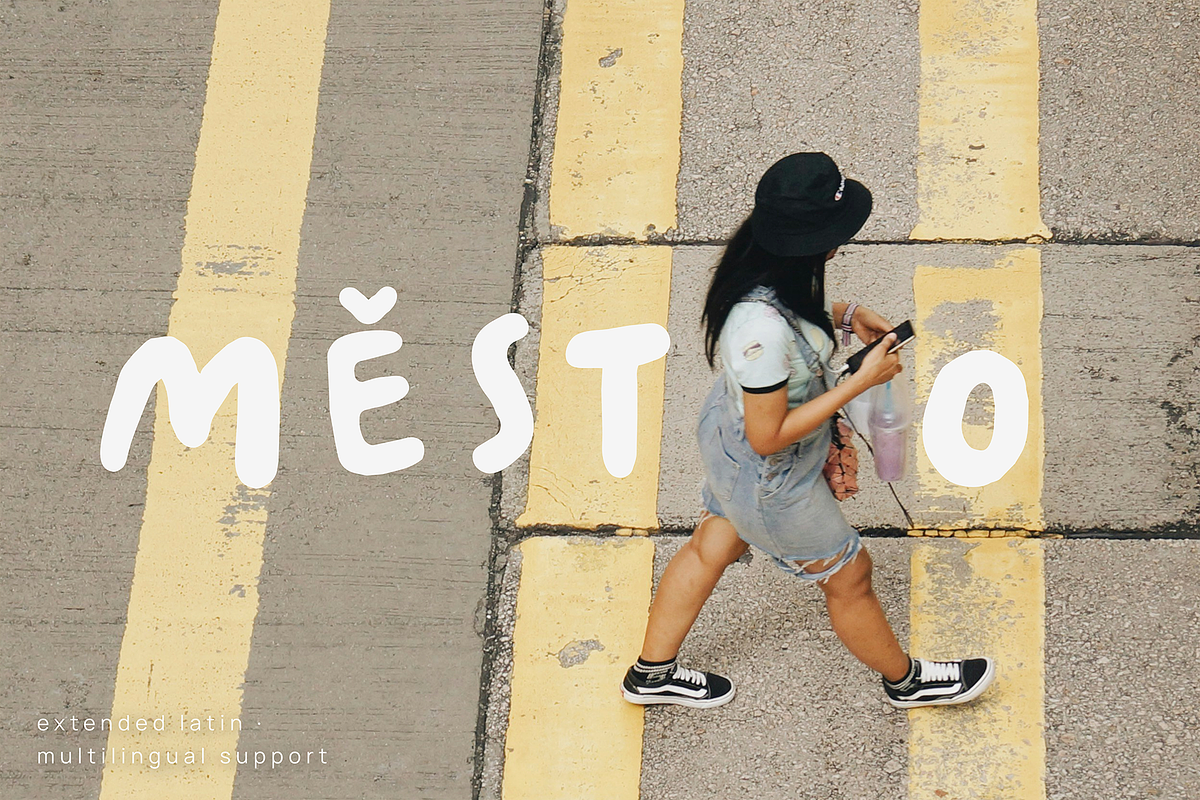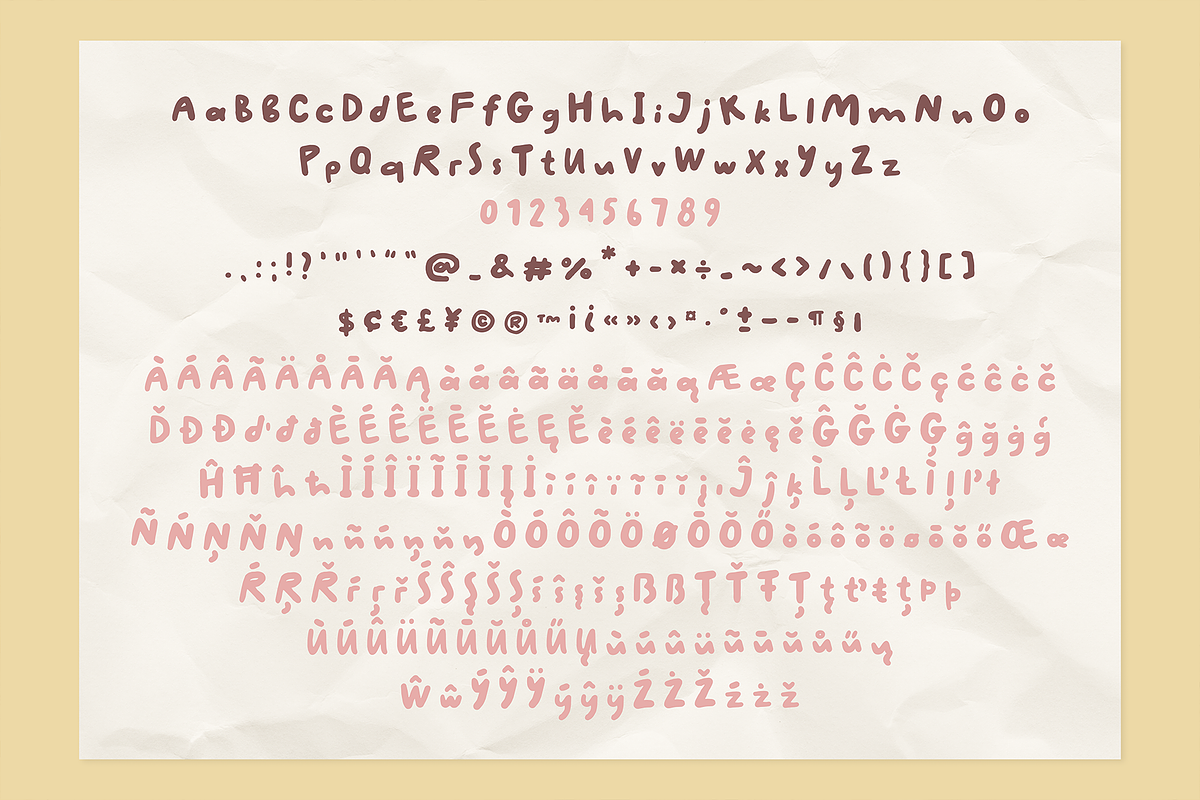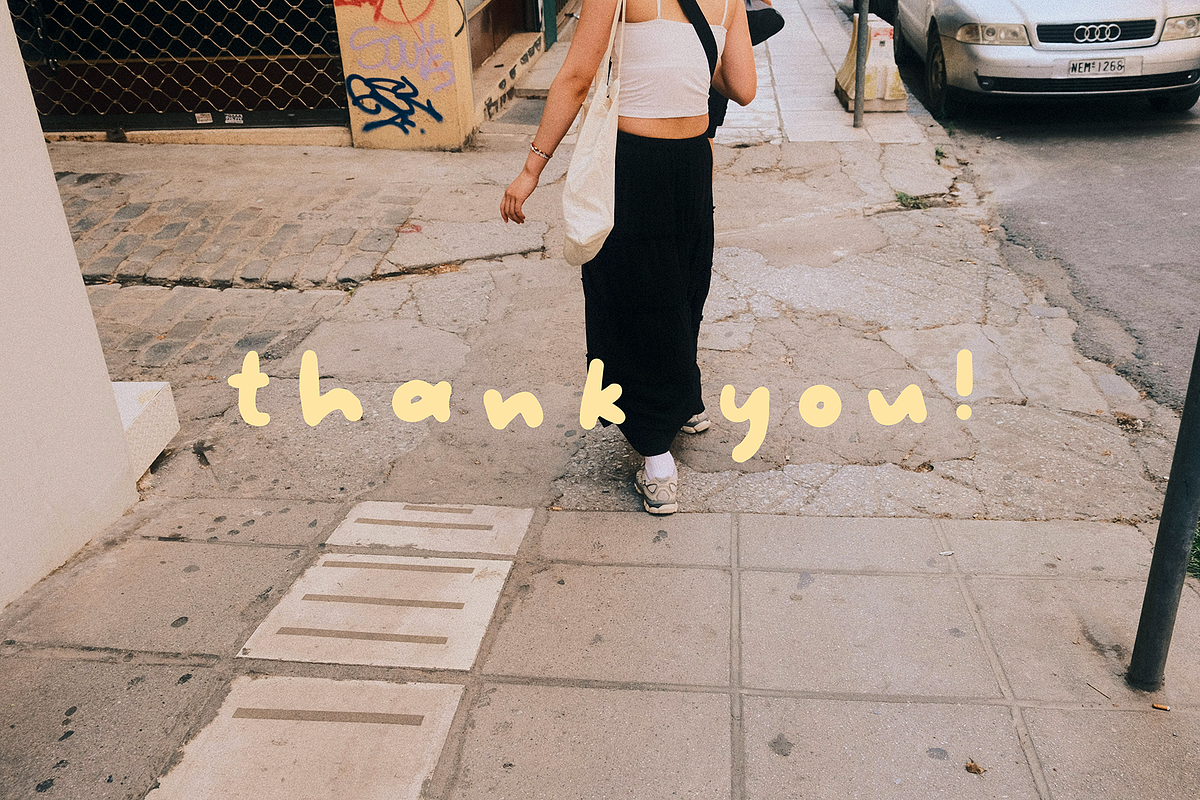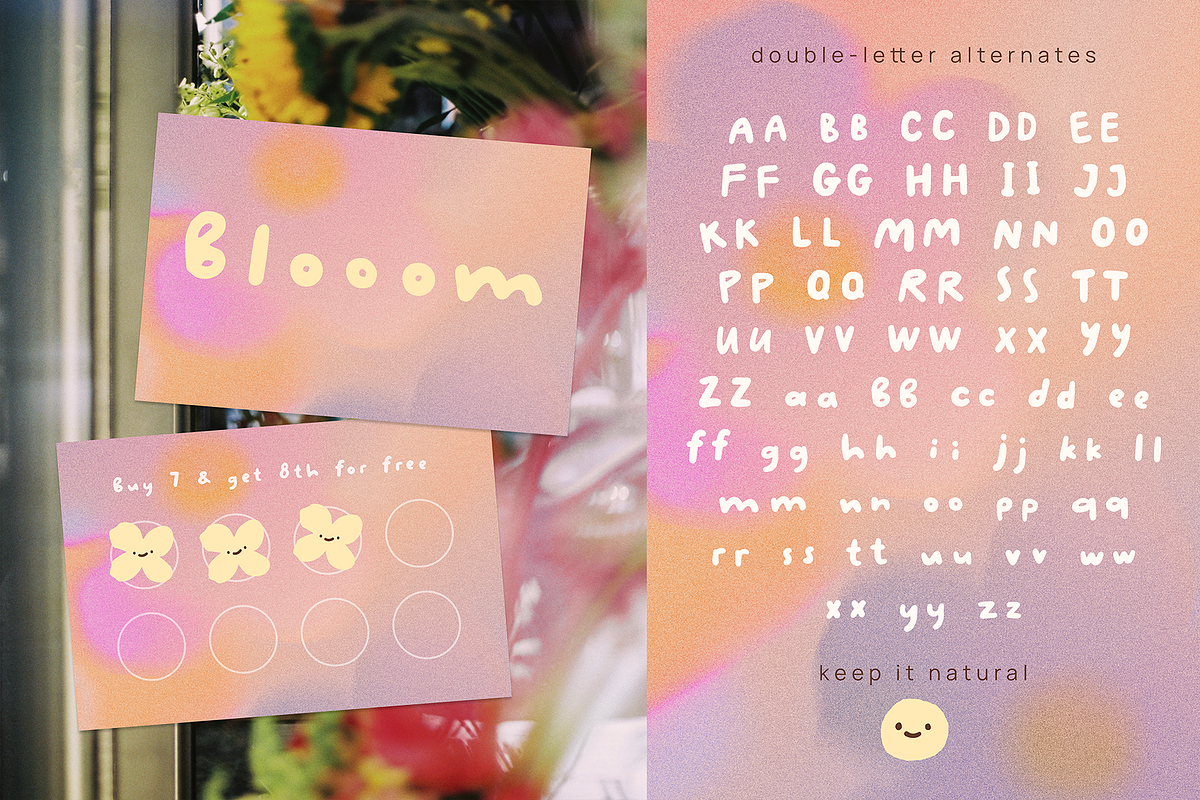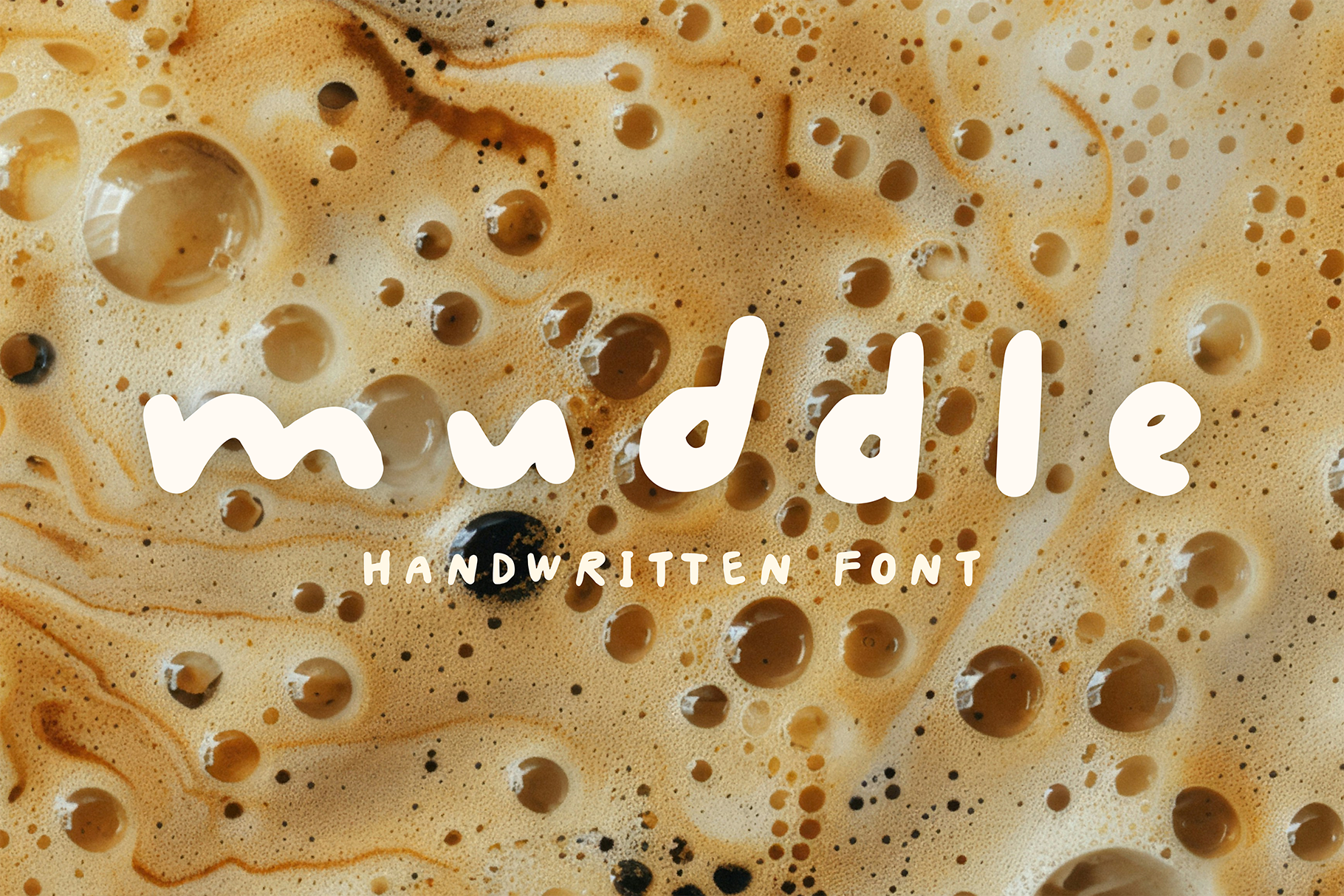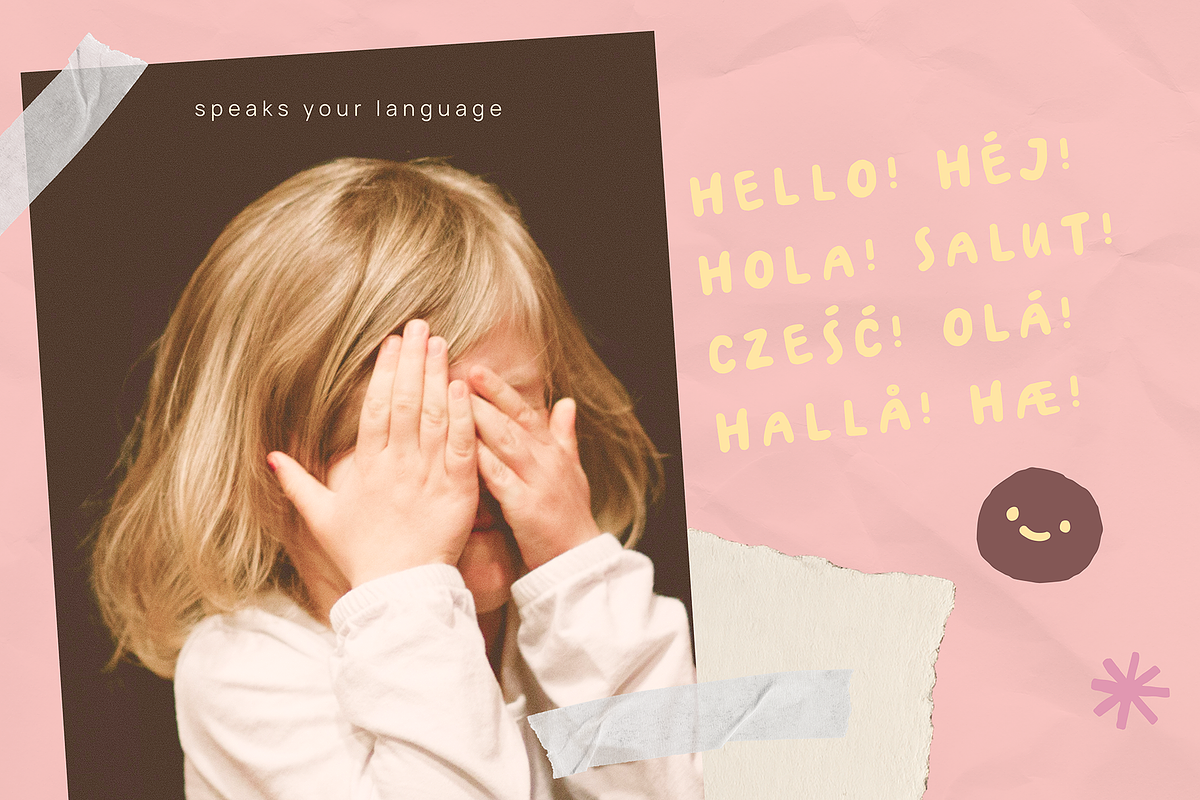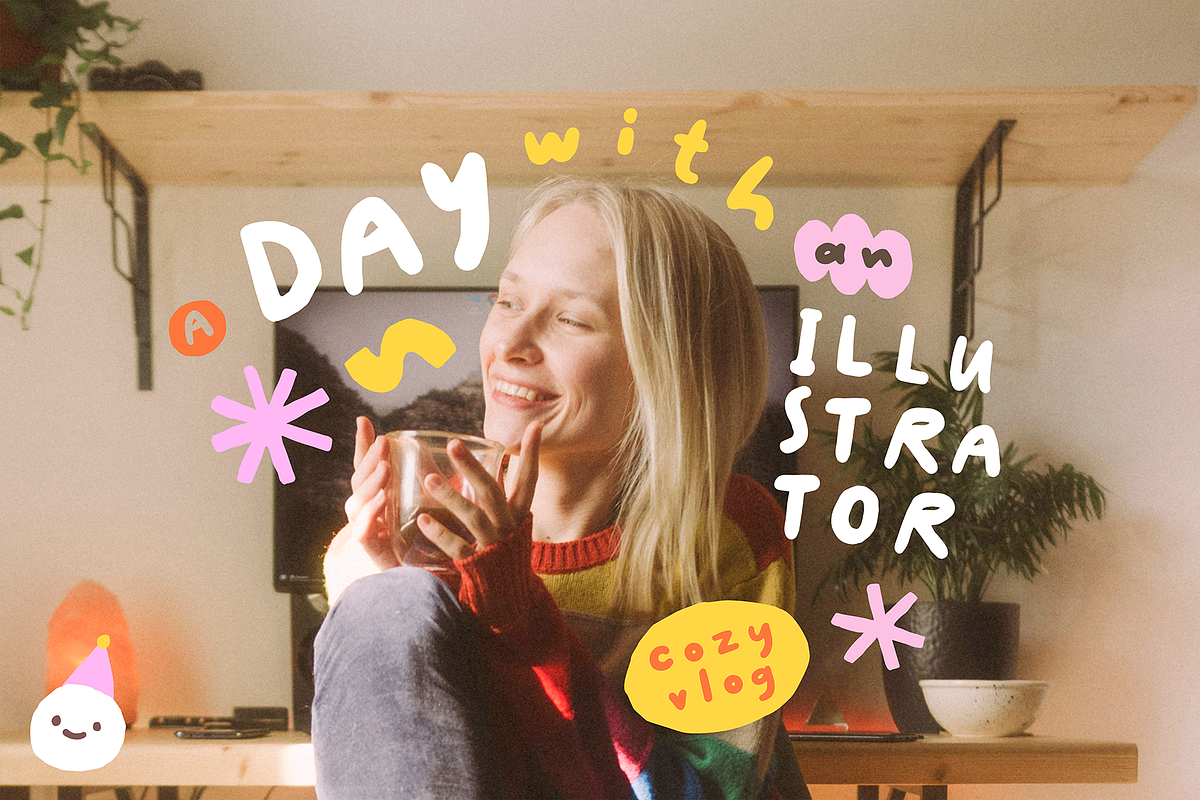
Muddle - handwritten font
Meet Muddle! A chunky handwritten font with a little bit of mess and a lot of personality.
It’s bold, playful, slightly wonky, and made to feel naturally hand-drawn. The imperfect shapes and double-letter alternates help keep words looking loose and organic, without that obvious repeated-letter look.
Muddle works great for branding, packaging, posters, editorial designs, social media, stickers, and anything that could use a fun handmade touch.
The font includes uppercase and lowercase letters, numbers, punctuation, extended Latin characters with multilingual support, and double-letter alternates.
Uppercase & lowercase
Extended Latin / multilingual support
Double-letter alternates